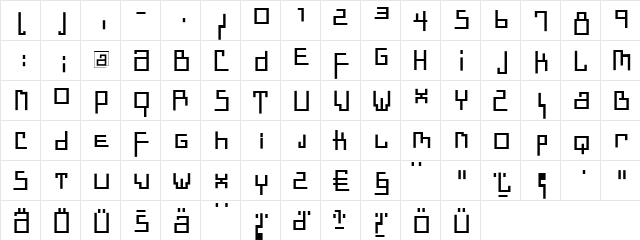
DadasTraces Regular Font Preview
DadasTraces Regular
DadasTraces Regular Font Details
Design Context for DadasTraces Typeface
DadasTraces is a composed and adaptable typeface that performs quietly and consistently across a wide range of design contexts.